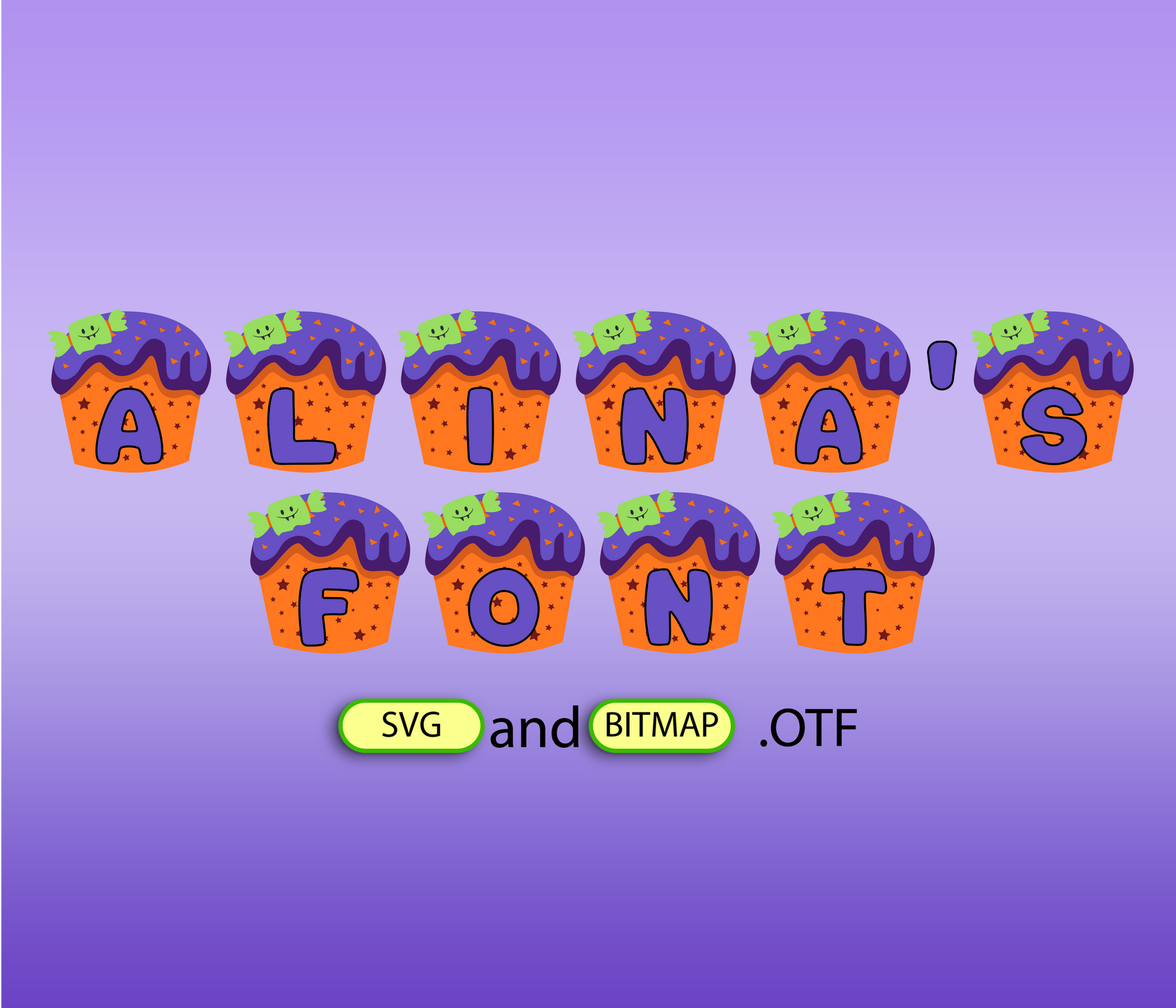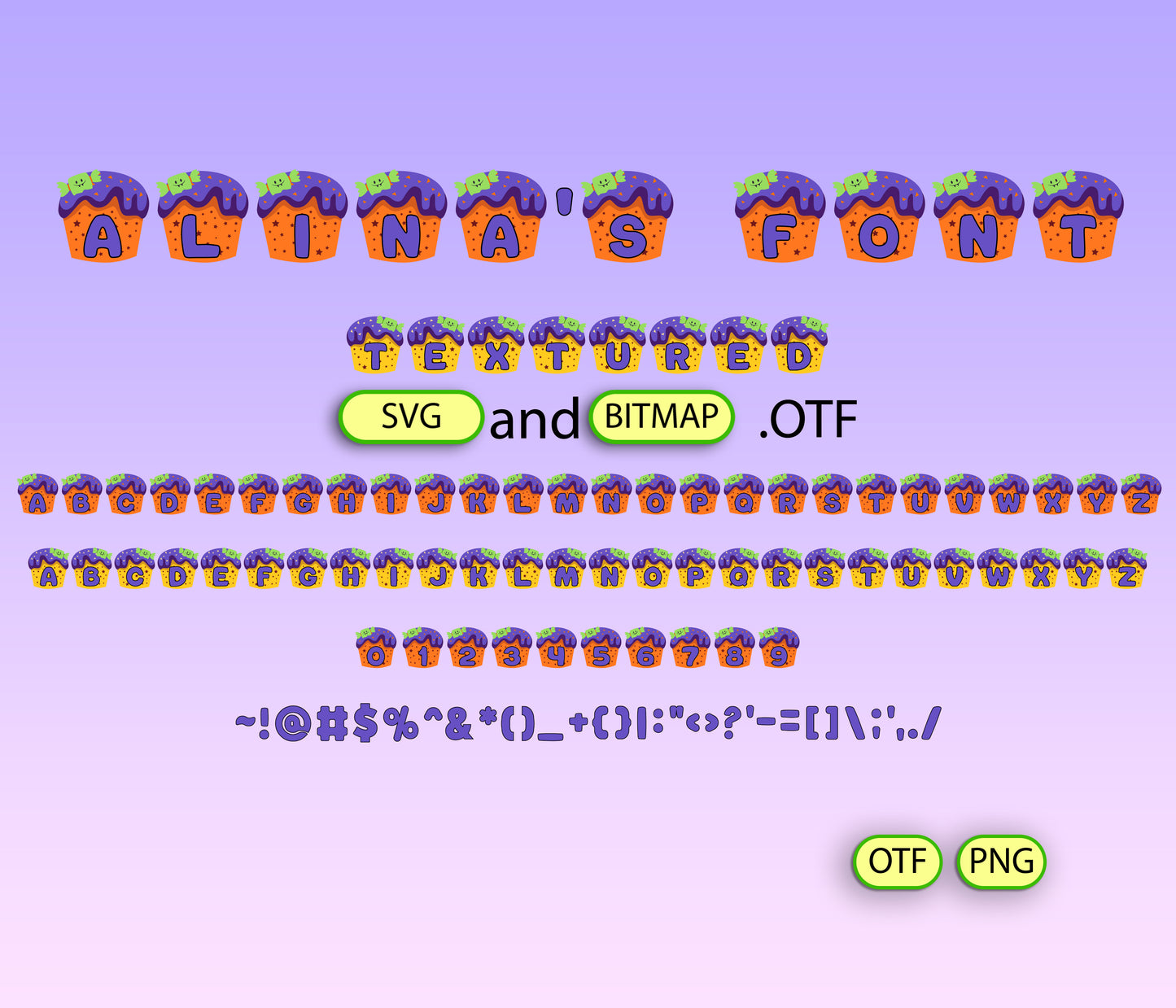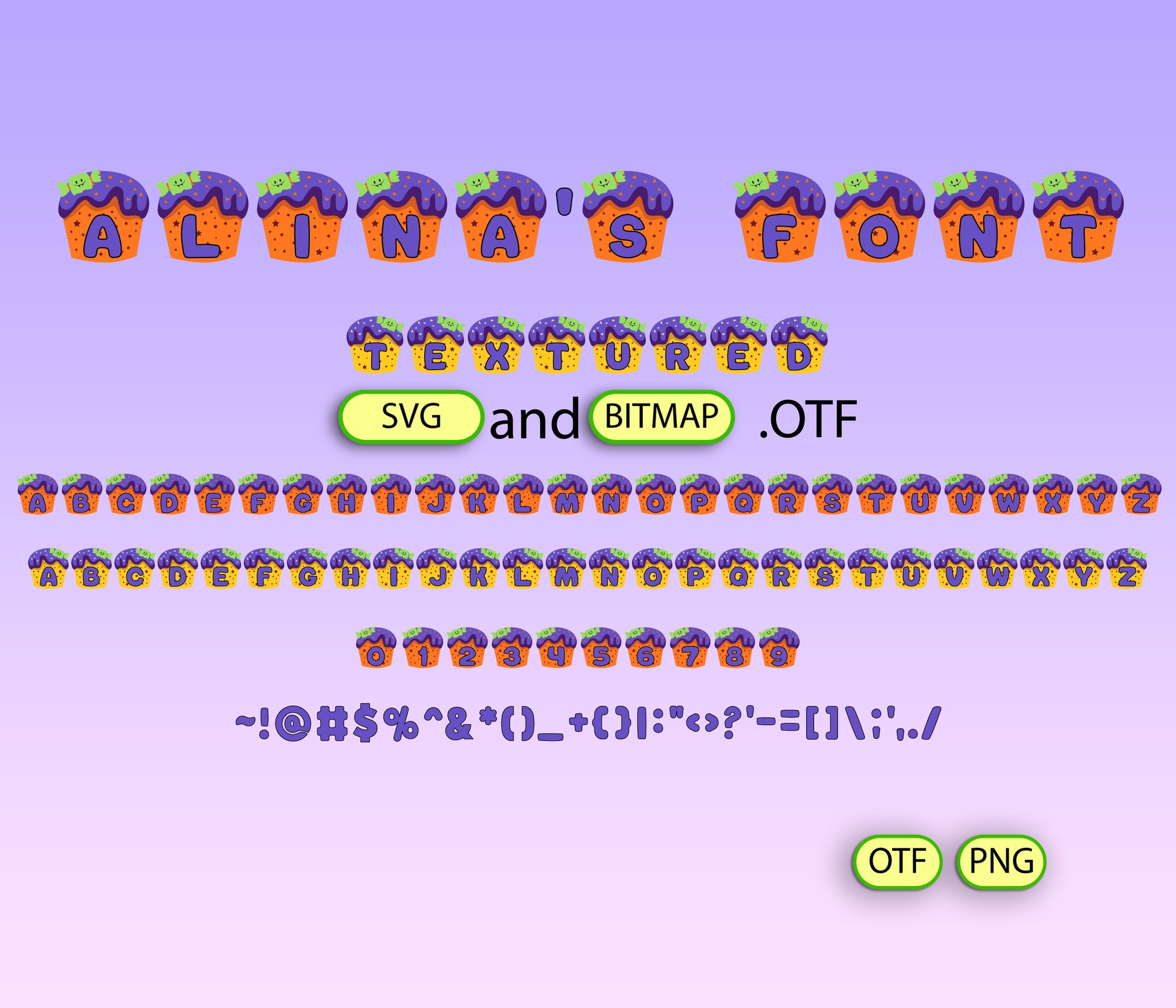
Halloween Muffin Font Textured Baked Nightmare
Step into the spooky world of haunted bakeries with our Halloween Muffin font, capturing the essence of cursed confections and sweet dread. Perfect for bakery events, haunted kitchen designers, spooky content creators, and creative professionals, this font brings the eerie, oven-baked spirit of Halloween treats to your projects. Create spine-tingling invitations, baked-themed merchandise, or digital content with the sugary, sinister energy of ultimate bakery scares.
Our Halloween Muffin font features rounded, pastry-like shapes and bold characters reflecting the sweet yet terrifying aesthetic of haunted bakery horror scenarios. Ideal for:
Our Halloween Muffin font includes textured and non-textured variants, ensuring compatibility with all software, including Canva. This feature allows easy incorporation into designs for users of all skill levels.